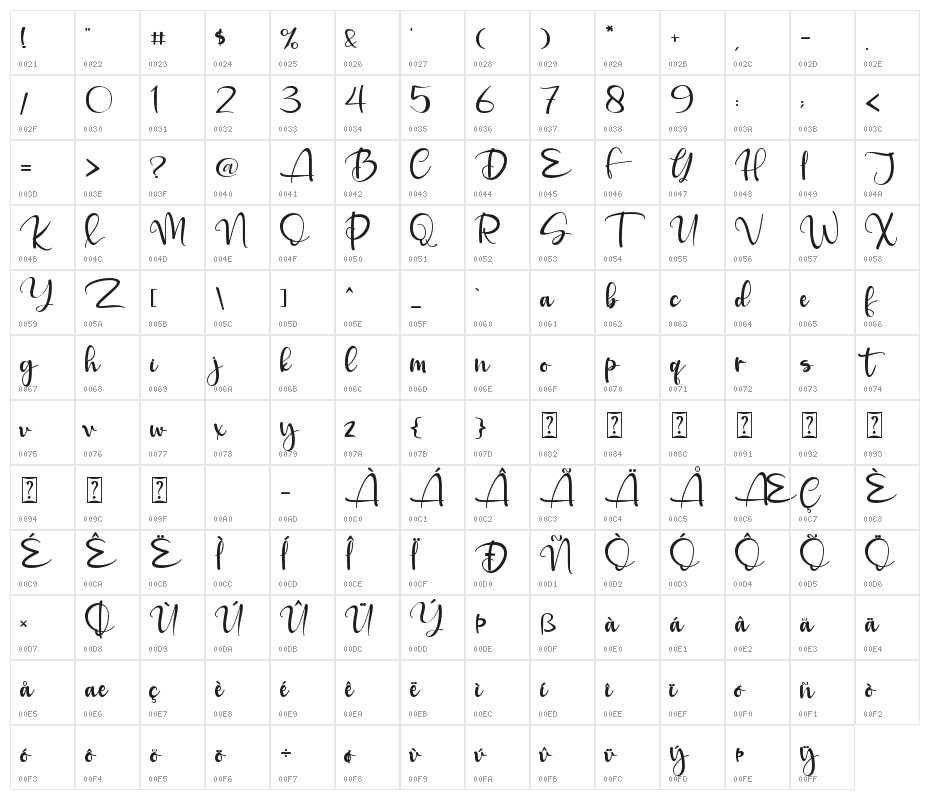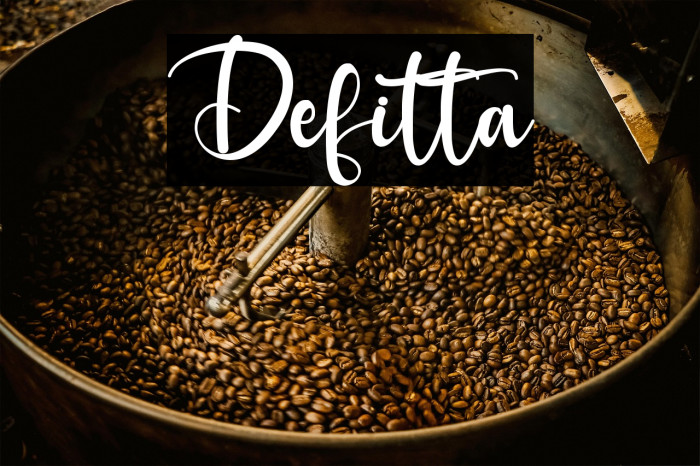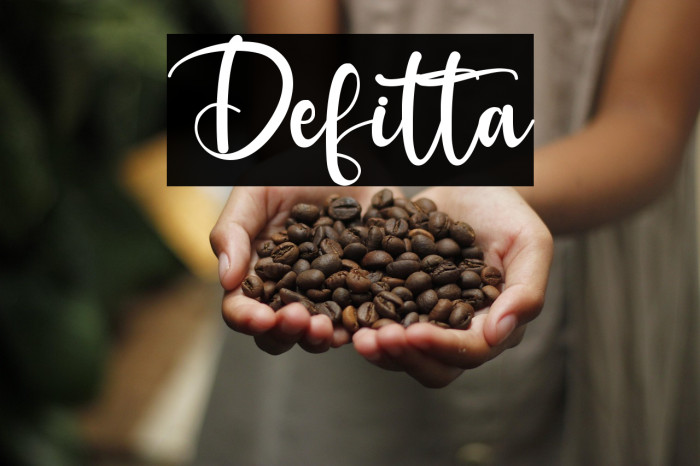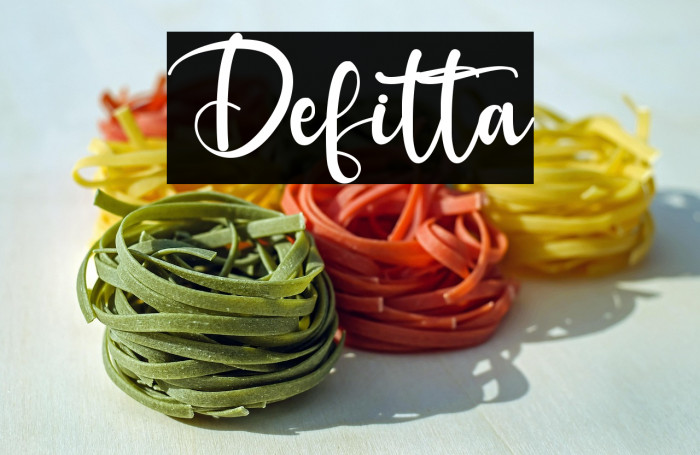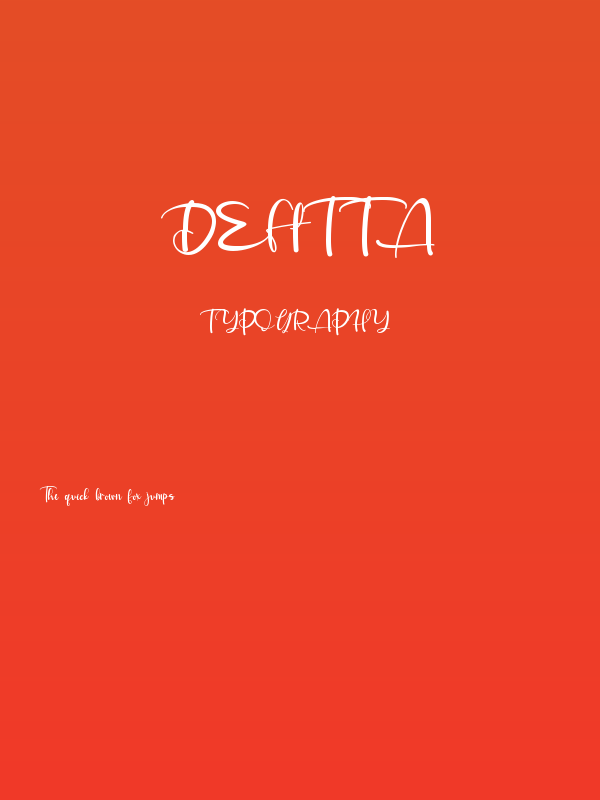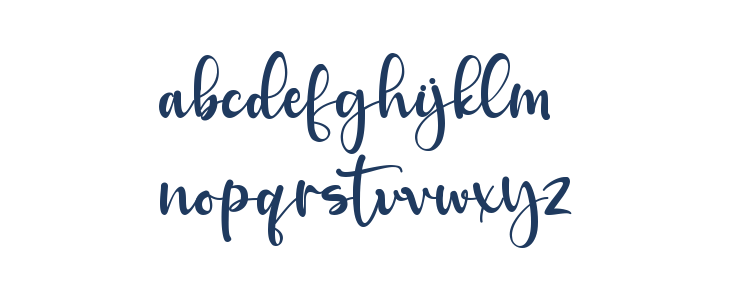
Defitta Font
Defitta Description
This font features a lively and flowing script style, characterized by its elegant curves and loops. The uppercase letters are tall and graceful, with a slight slant that adds a dynamic feel. The lowercase letters maintain a consistent style, with smooth connections between strokes, enhancing the fluidity of the text. The numerals are bold and slightly rounded, complementing the overall aesthetic. Special characters are integrated seamlessly, maintaining the font's cohesive appearance. This font exudes a sense of sophistication and creativity, making it suitable for a variety of design applications.
| Overall Style | Elegant |
| Use Case | Logos, Invitations, Decorative text |
| Proposed Projects | Ideal for wedding invitations, greeting cards, branding, and logo design. |